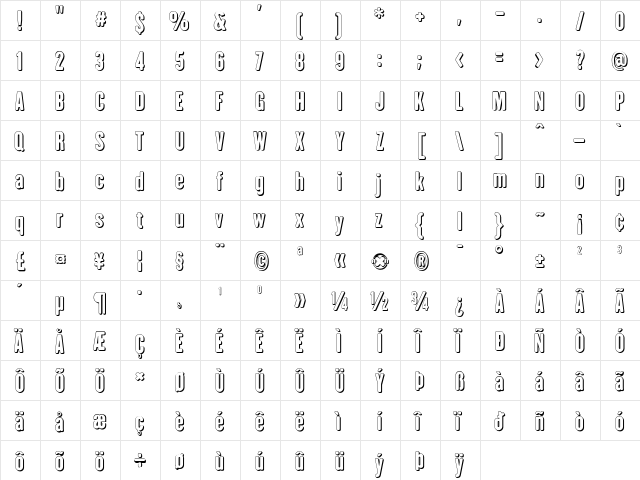
I am Hueca Ultra-condensed Black Font Preview
I am Hueca Ultra-condensed Black
I am Hueca Ultra-condensed Black Font Details
| Style | Ultra-condensed Black |
| Foundry | deFharo |
| Designer | deFharo |
Design Context for I am Hueca Typeface
I am Hueca takes a measured approach to typography — its balanced proportions and neutral character make it a reliable workhorse for both digital and print work. Its narrow stance lets it pack a punch even in space-constrained designs.